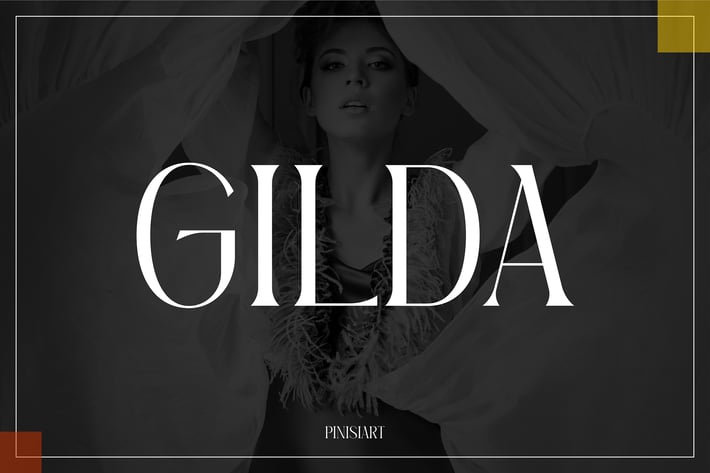
Fashion Font - Gilda
GILDA is an elegant, high-fashion-inspired display font that exudes sophistication and refinement. With its sleek and modern letterforms, this font captures the essence of luxury, perfect for elevating any project to premium status. Gilda’s timeless aesthetic makes it the ideal choice for designs that aim to showcase style and grace.
Market Applications
Luxury Branding & Fashion
Gilda is perfect for fashion brands, haute couture labels, and premium product lines. Use it in logos, packaging, and advertisements to convey elegance and exclusivity.
Editorial Design
Ideal for fashion magazines, lifestyle blogs, and sophisticated publications. Its refined style adds a professional touch to headlines, feature stories, and layouts.
Event Invitations & Marketing Campaigns
Perfect for high-profile events like fashion shows, galas, and luxury product launches. Gilda adds an aura of class and prestige to promotional materials.
Web Design & Digital Assets
Use Gilda for websites, digital banners, and social media graphics targeting luxury audiences. Its clean, bold style ensures visibility while maintaining sophistication.
Personal Branding
Ideal for influencers, photographers, or stylists looking to establish a chic and polished visual identity.